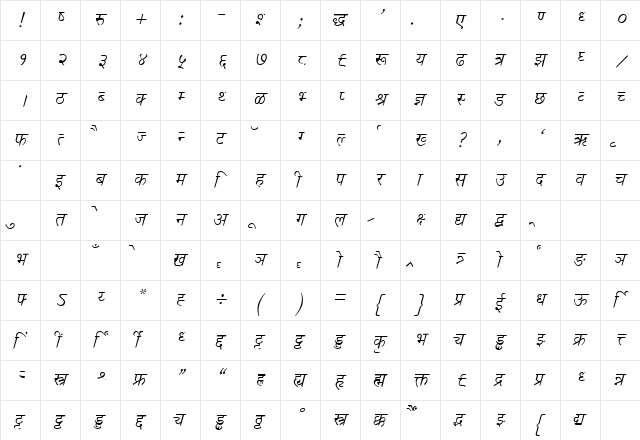
Kruti Dev 022 Italic
Design Context for Kruti Dev 022 Typeface
Kruti Dev 022 is a composed and adaptable typeface that performs quietly and consistently across a wide range of design contexts. Its italic angle brings a sense of urgency and motion to the letterforms.